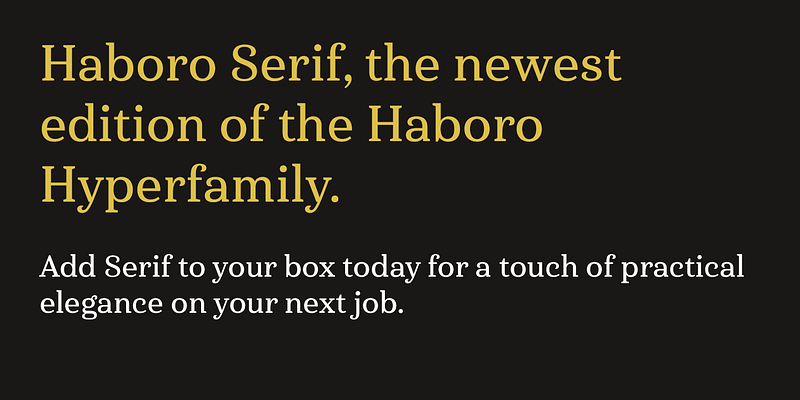
Haboro Serif
Haboro Serif maintains the unique, script-like terminals of the original. Standard serifs are also available as OpenType alternates within the font.